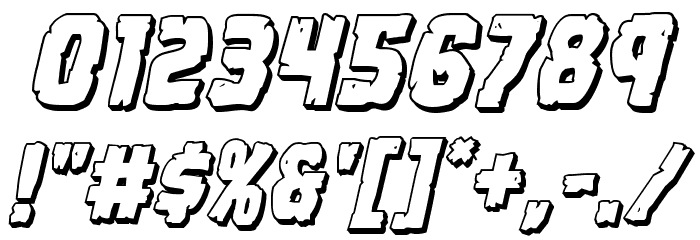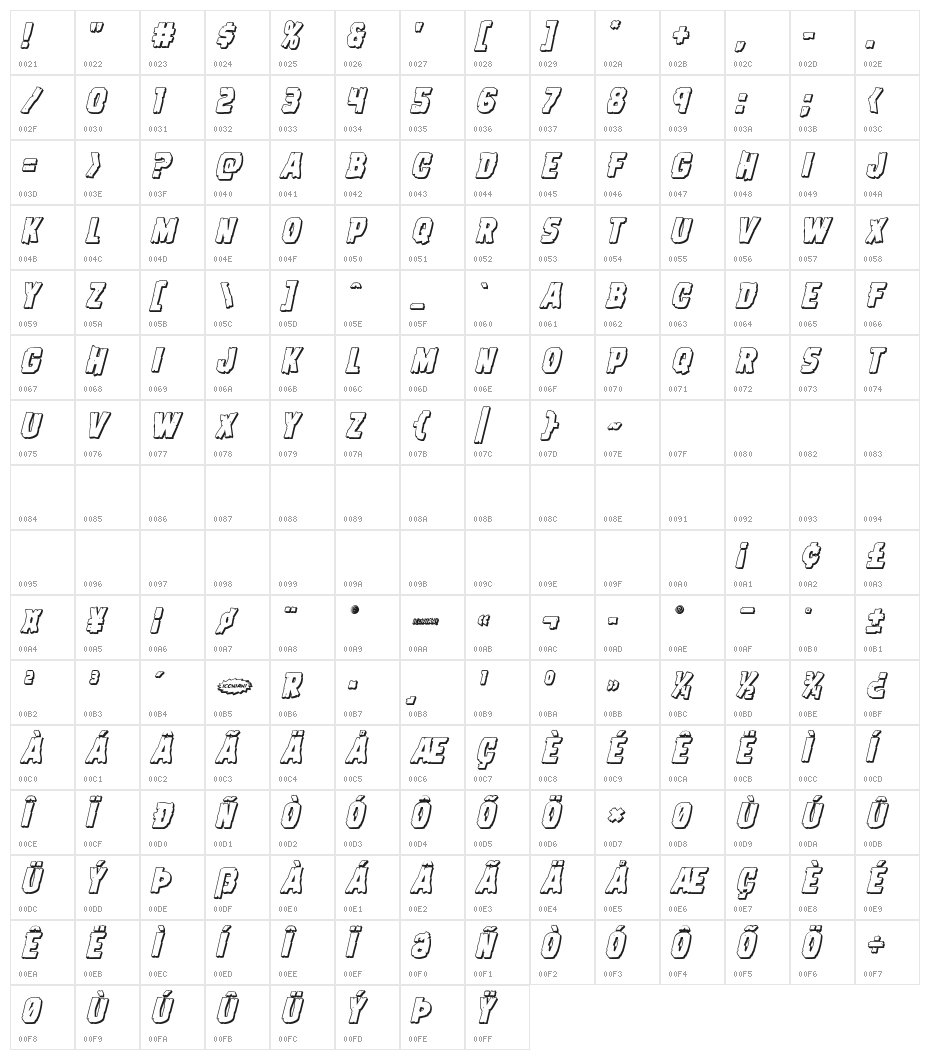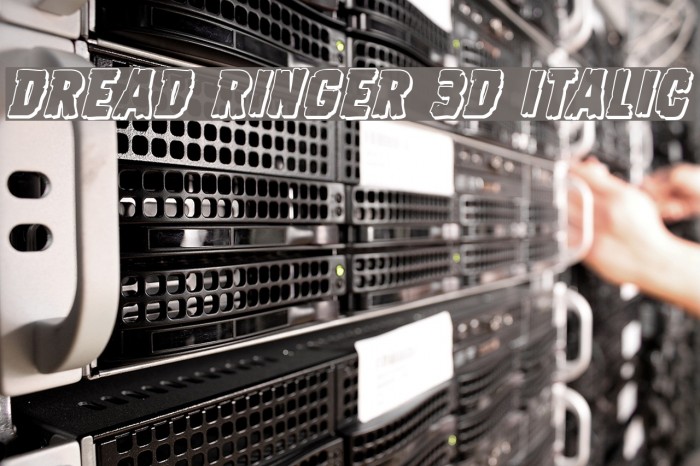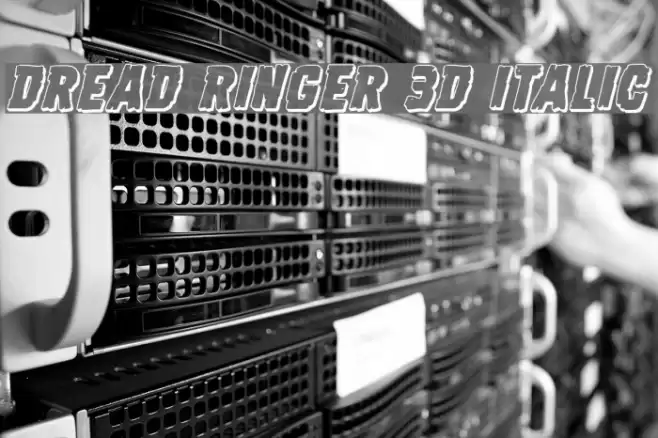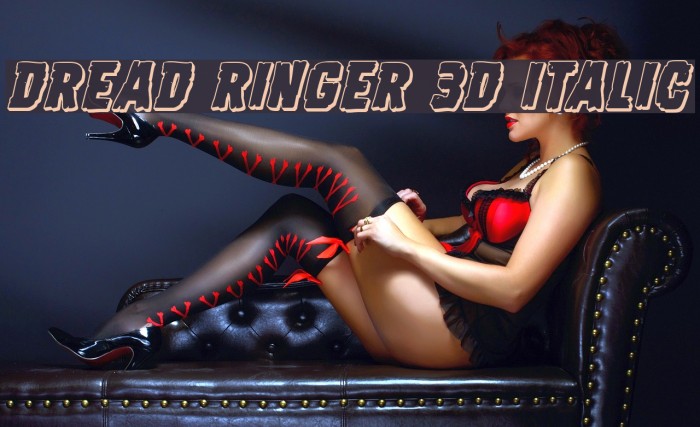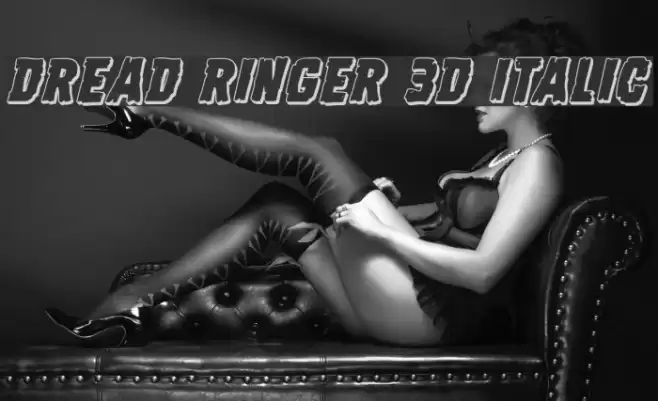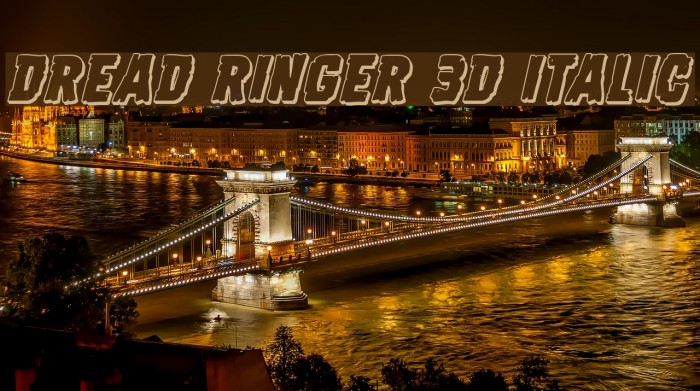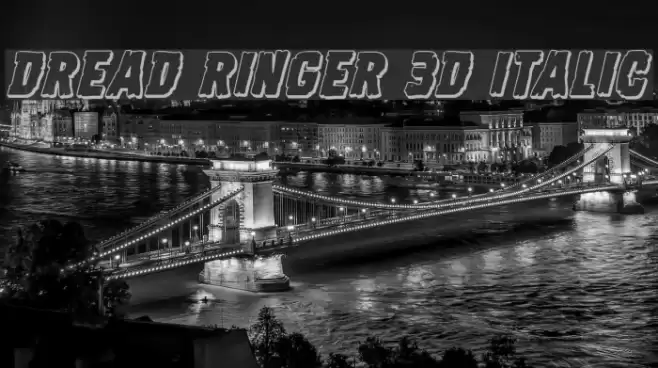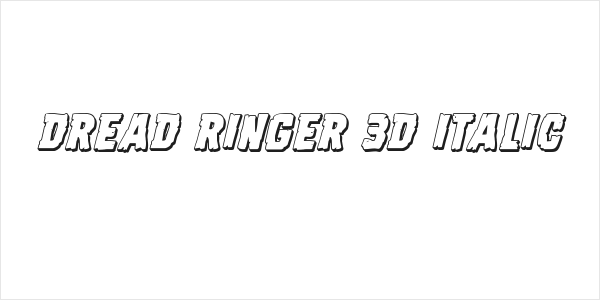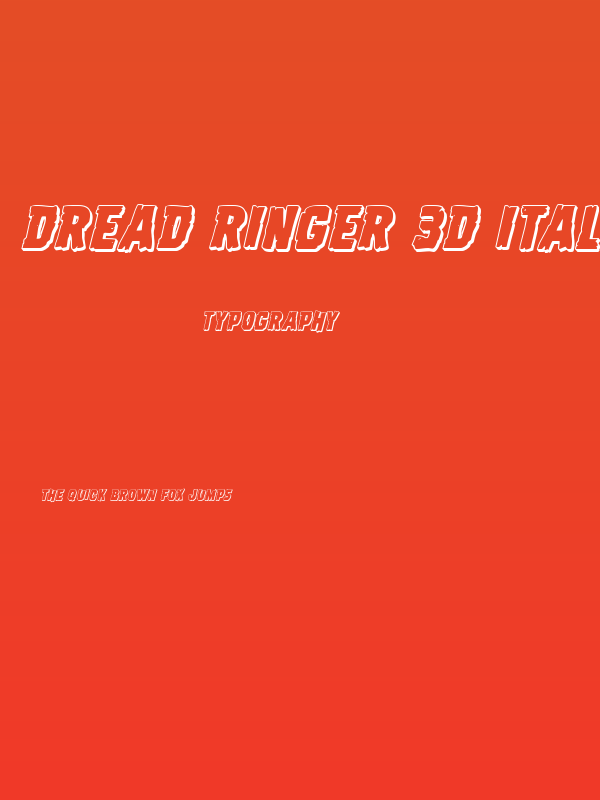
Dread Ringer 3D Italic Font
Dread Ringer 3D Italic Description
This font features a bold, three-dimensional design with an italic slant, giving it a dynamic and impactful appearance. The characters are outlined with a shadow effect, enhancing the 3D illusion and adding depth. The style is playful and eye-catching, making it suitable for attention-grabbing headlines or creative projects. The uppercase and lowercase letters maintain a consistent style, with numbers and special characters following the same design principles. The overall look is modern and slightly edgy, perfect for projects that require a bold statement.
| Proposed Projects | Ideal for posters, video game graphics, comic book titles, and any project needing a bold, eye-catching font. |